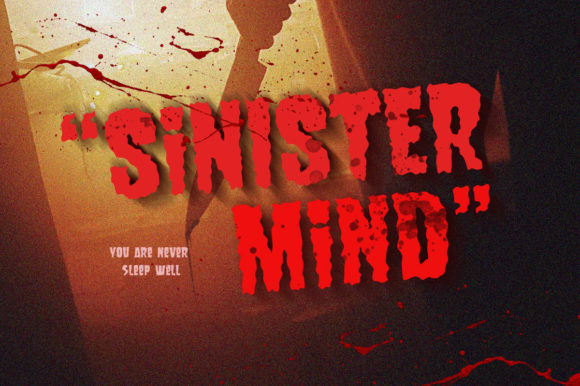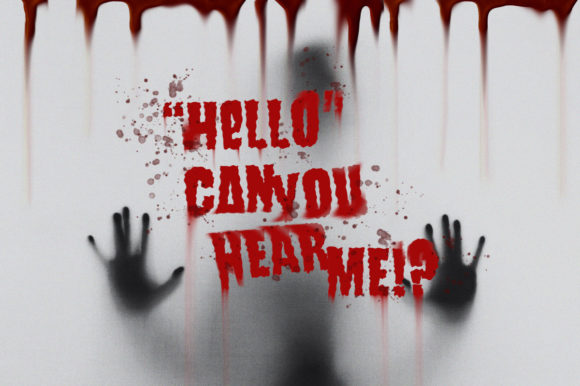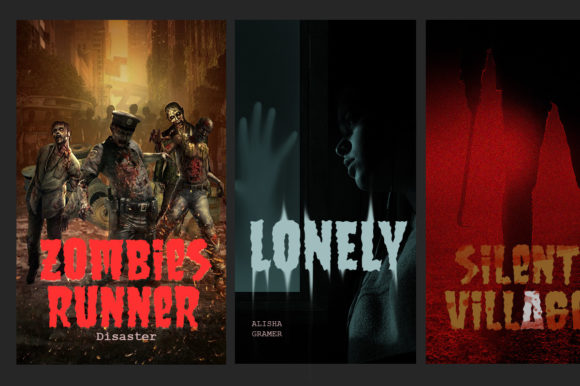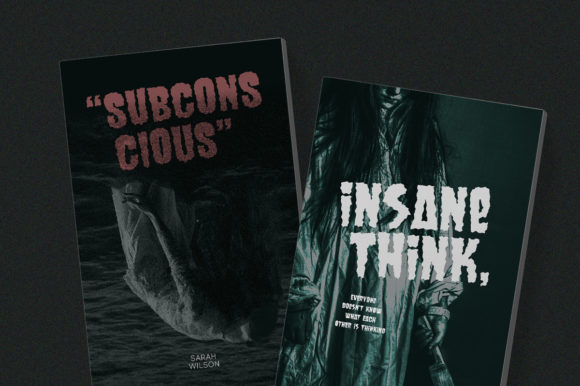
Sinister Mind Font: A Killer Display Font for Horror Designs!
About the Sinister Mind Font
Elevate your designs with Sinister Mind Font, a font that combines sophistication with readability. Sinister Mind is an eye-catching typeface with a great look in horror / creepy font. This type of font is perfect to be applied especially in movies that need a standout font. You can also use it for simple forms such as invitations, labels, logos, magazines, books, greetings, packaging, novels, labels, or advertising purpose.
Sinister Mind Font Usage Examples
Sinister Mind Font Example